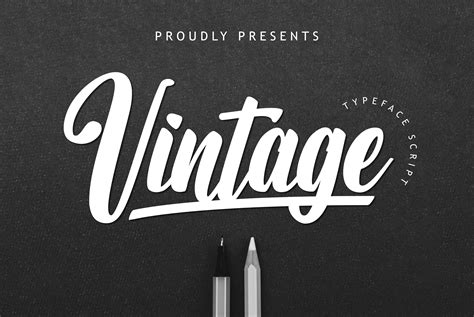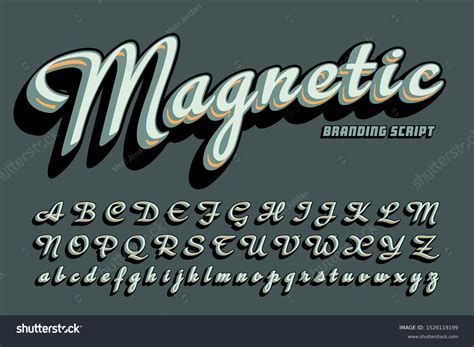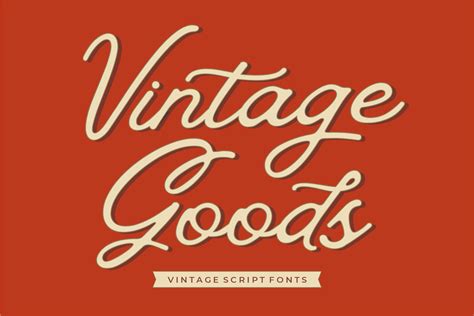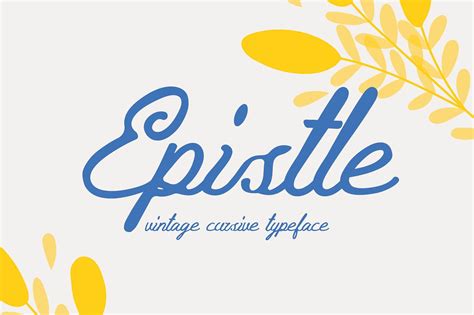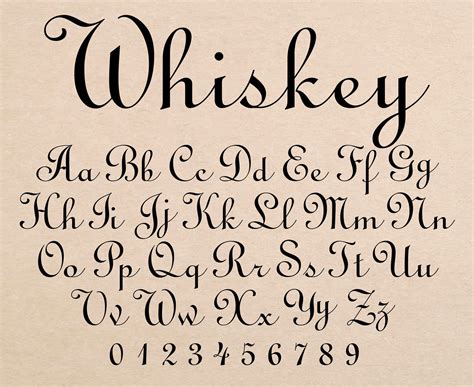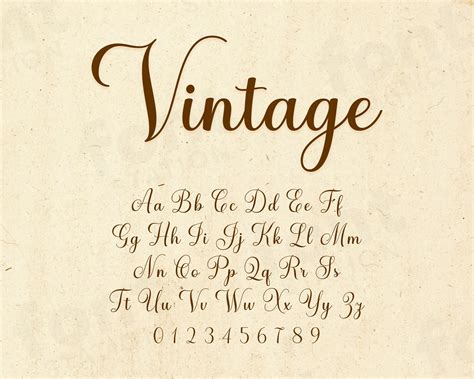
Retro Cursive Font
In the vast world of typography, there are countless fonts that cater to various design needs and aesthetic preferences. Among these, the Retro Cursive Font stands out as a timeless choice that evokes nostalgia and elegance. This font style, characterized by its flowing, handwritten appearance, has been a favorite among designers for decades. Whether you're creating vintage-inspired designs, wedding invitations, or artistic logos, a Retro Cursive Font can add a touch of sophistication and charm.
Understanding Retro Cursive Fonts
A Retro Cursive Font is a typeface that mimics the natural flow of handwriting, often with a slight slant and connected letters. This style is reminiscent of the cursive writing taught in schools during the mid-20th century, making it a popular choice for designs that aim to evoke a sense of nostalgia. The fluidity and grace of these fonts make them ideal for a variety of applications, from formal invitations to casual greeting cards.
History and Evolution of Retro Cursive Fonts
The origins of cursive writing can be traced back to ancient Roman times, but it was during the Renaissance that cursive scripts began to take on a more refined and elegant form. Over the centuries, cursive writing evolved, and by the 20th century, it had become a staple in educational systems worldwide. The Retro Cursive Font we know today is a digital adaptation of these traditional handwriting styles, designed to capture the essence of vintage aesthetics while being practical for modern use.
As technology advanced, so did the ability to create and distribute fonts digitally. The advent of desktop publishing in the 1980s and 1990s made it possible for designers to experiment with a wide range of fonts, including Retro Cursive Fonts. Today, these fonts are readily available in various digital formats, making them accessible to anyone with a computer and design software.
Applications of Retro Cursive Fonts
Retro Cursive Fonts are incredibly versatile and can be used in a multitude of design projects. Here are some popular applications:
• Wedding Invitations: The elegant and romantic feel of a Retro Cursive Font makes it perfect for wedding invitations, save-the-date cards, and other wedding-related stationery.
• Logo Design: For businesses looking to convey a sense of tradition and timelessness, a Retro Cursive Font can be an excellent choice for logos.
• Greeting Cards: Whether it's a birthday, anniversary, or holiday card, a Retro Cursive Font adds a personal and heartfelt touch.
• Vintage-Inspired Designs: Retro Cursive Fonts are ideal for designs that aim to capture the aesthetics of the past, such as retro posters, advertisements, and packaging.
• Handwritten Notes: For a more personal touch, Retro Cursive Fonts can be used to create digital handwritten notes, letters, and journals.
Choosing the Right Retro Cursive Font
With so many Retro Cursive Fonts available, choosing the right one for your project can be a daunting task. Here are some factors to consider:
• Legibility: Ensure that the font is easy to read, especially if it will be used in small sizes or on digital screens.
• Style: Consider the overall style and mood of your design. Some Retro Cursive Fonts have a more formal and elegant feel, while others are more casual and playful.
• Licensing: Check the licensing terms to ensure you have the right to use the font for your intended purpose.
Here is a table to help you compare some popular Retro Cursive Fonts:
Font Name Style Legibility Best For
Great Vibes Elegant and Formal High Wedding Invitations, Formal Events
Pacifico Casual and Playful Medium Greeting Cards, Casual Invitations
Allura Romantic and Feminine High Wedding Invitations, Love Letters
Dancing Script Dynamic and Energetic Medium Posters, Advertisements
Designing with Retro Cursive Fonts
When designing with Retro Cursive Fonts, there are several best practices to keep in mind:
• Pairing Fonts: Retro Cursive Fonts often work best when paired with a complementary sans-serif or serif font. This can help balance the design and improve readability.
• Color Scheme: Choose a color scheme that complements the font. Soft, muted colors can enhance the vintage feel, while bolder colors can add a modern twist.
• Spacing: Pay attention to letter spacing and line height to ensure the text is easy to read. Retro Cursive Fonts can sometimes be tight, so adjusting the spacing can make a big difference.
• Size: Use the font in larger sizes for headings and smaller sizes for body text. This helps maintain readability and visual hierarchy.
Here are some examples of how Retro Cursive Fonts can be used in different design contexts:
Example of Retro Cursive Font in Wedding Invitation